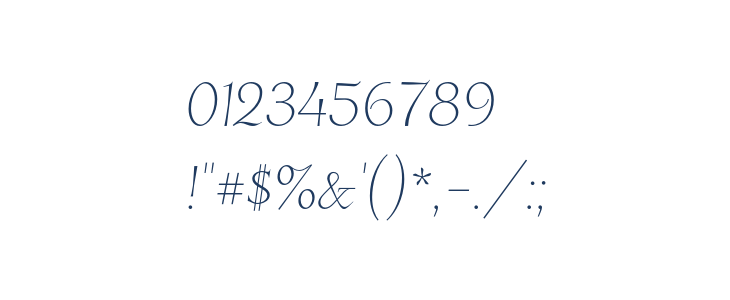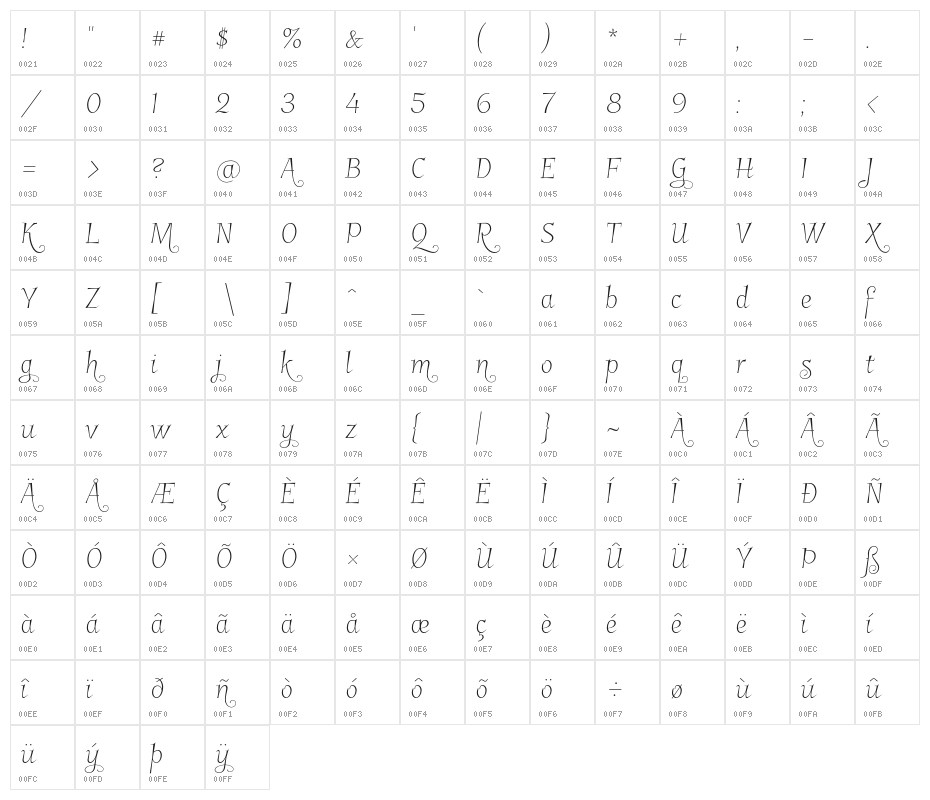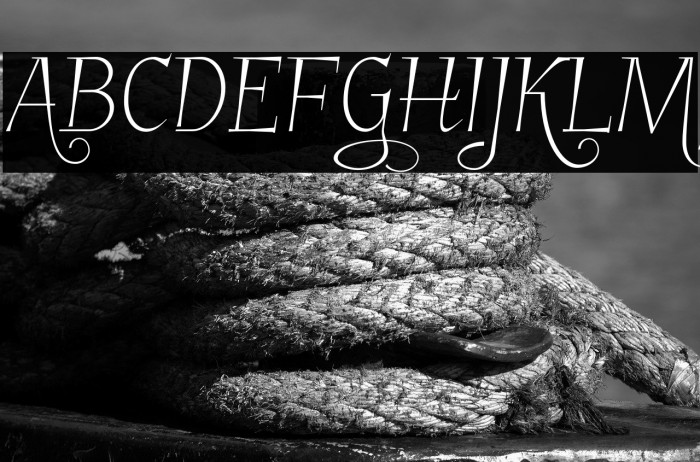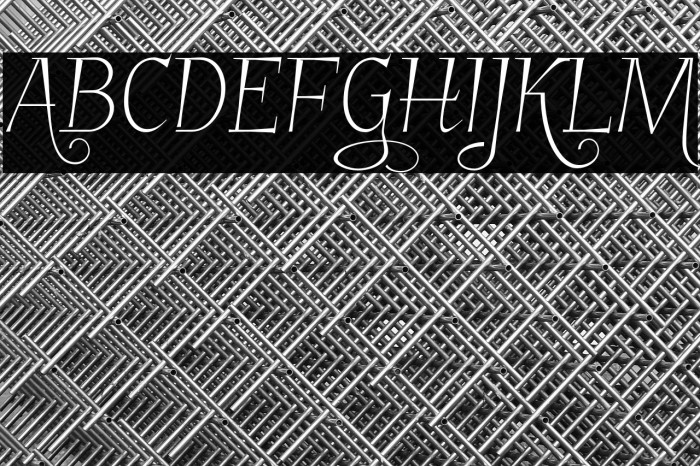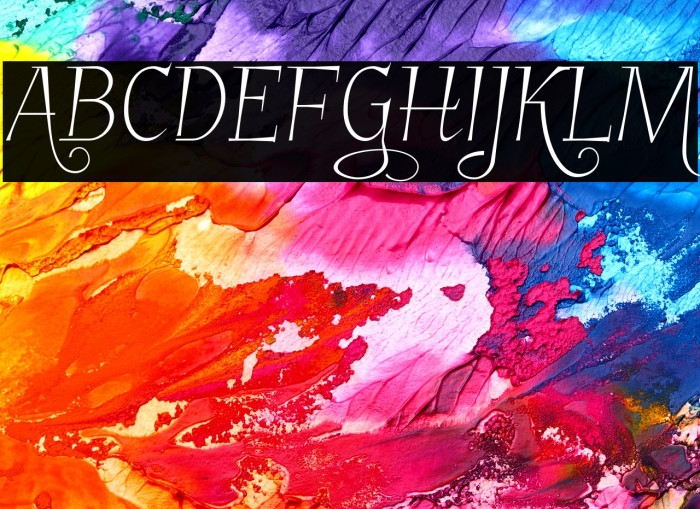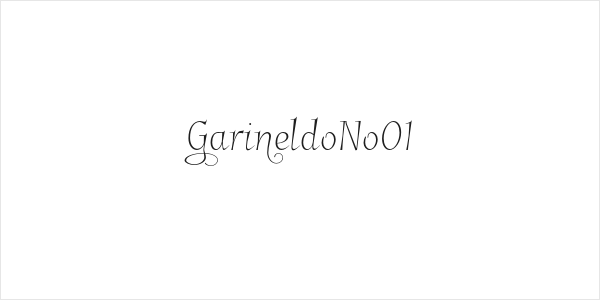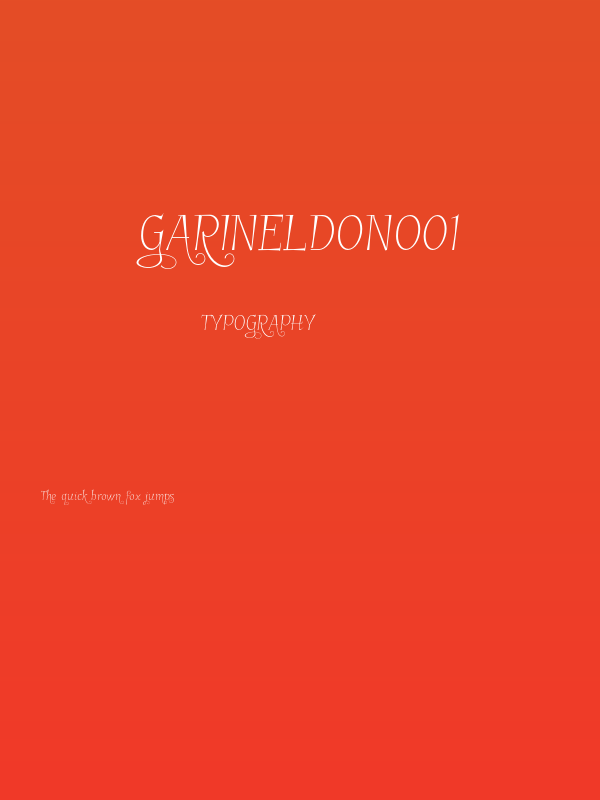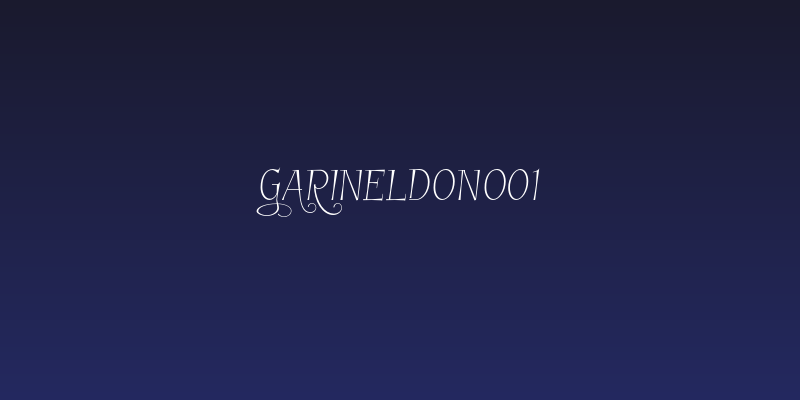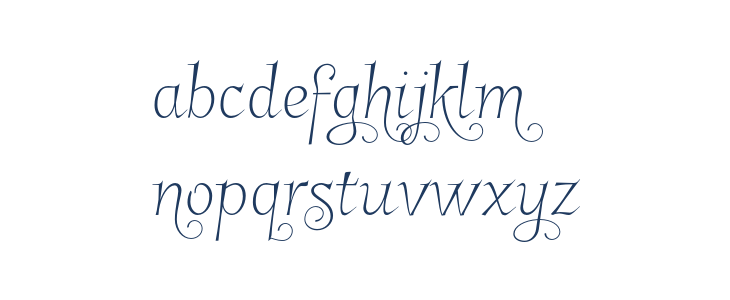
GarineldoNo01 Font
GarineldoNo01 Description
This elegant and sophisticated font features a script style with delicate, flowing lines and intricate swashes. The uppercase letters are adorned with graceful flourishes, adding a touch of luxury and refinement. The lowercase letters maintain a consistent style, with smooth curves and a slightly italicized appearance. The numerals are clear and stylish, complementing the overall aesthetic. Special characters are thoughtfully designed, maintaining the font's cohesive look. This font exudes a sense of elegance and is perfect for projects that require a touch of class and sophistication.
| Proposed Projects | Ideal for wedding invitations, luxury branding, elegant packaging, and high-end editorial design. |